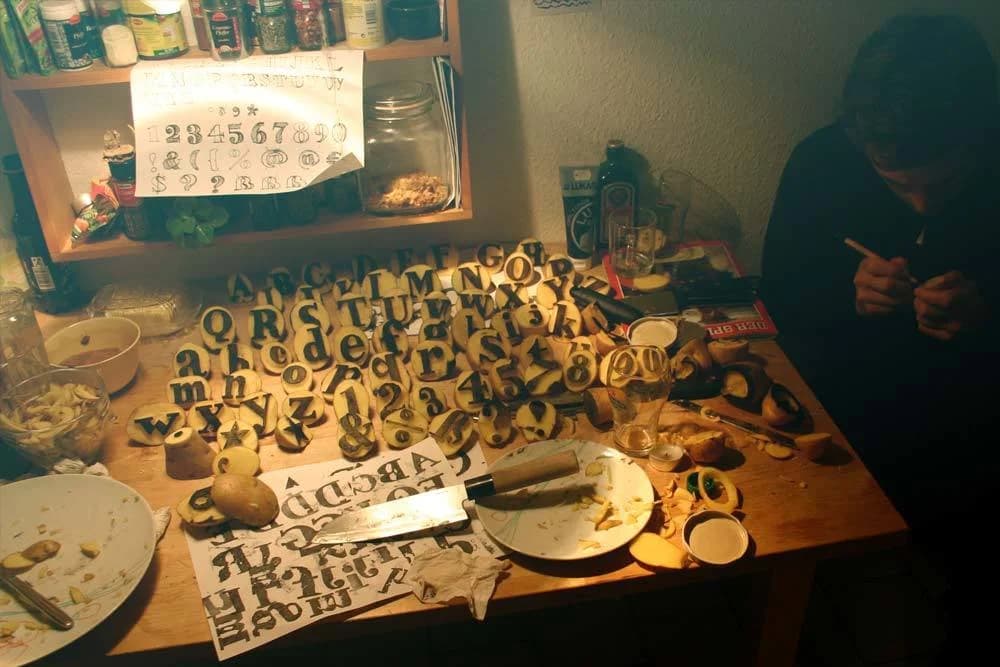
HVD Bodedo
A display serif from HvD Fonts with insufficient publicly available detail to assess its full character or weight range.
The name suggests a decorative or display-oriented serif design from HvD Fonts; insufficient page data to confirm precise subcategory, but display classification is the most likely fit for this foundry's naming conventions.